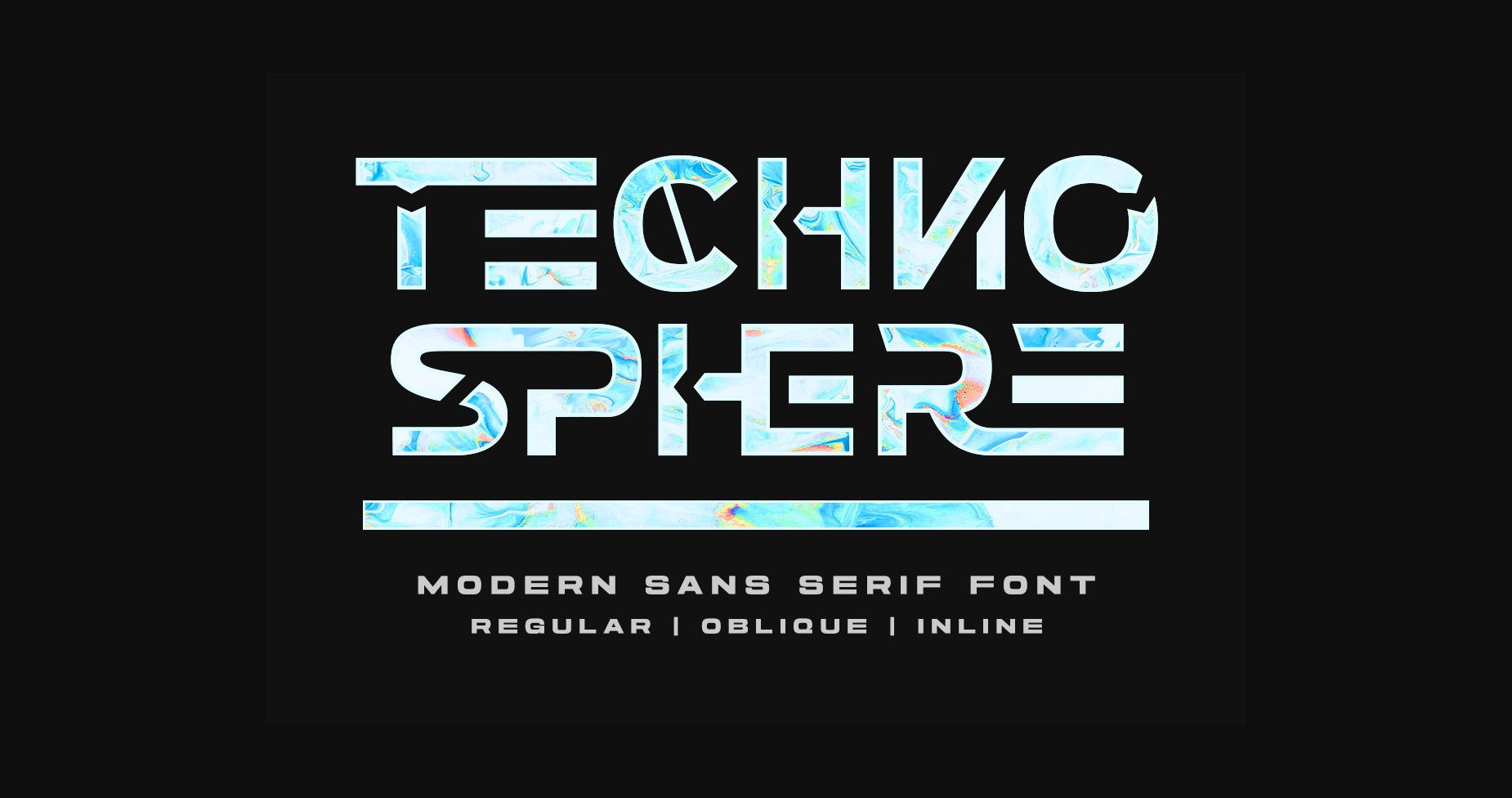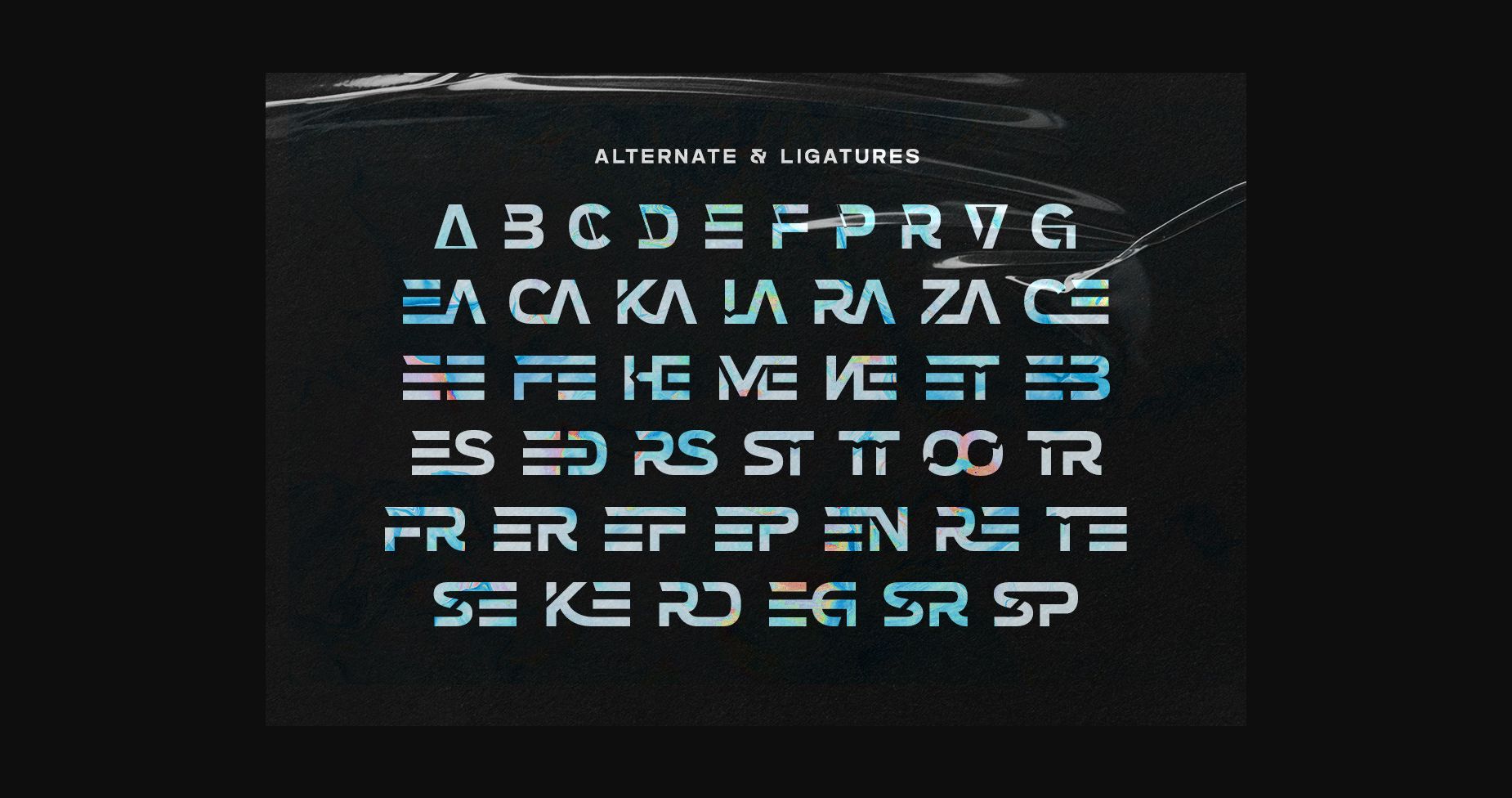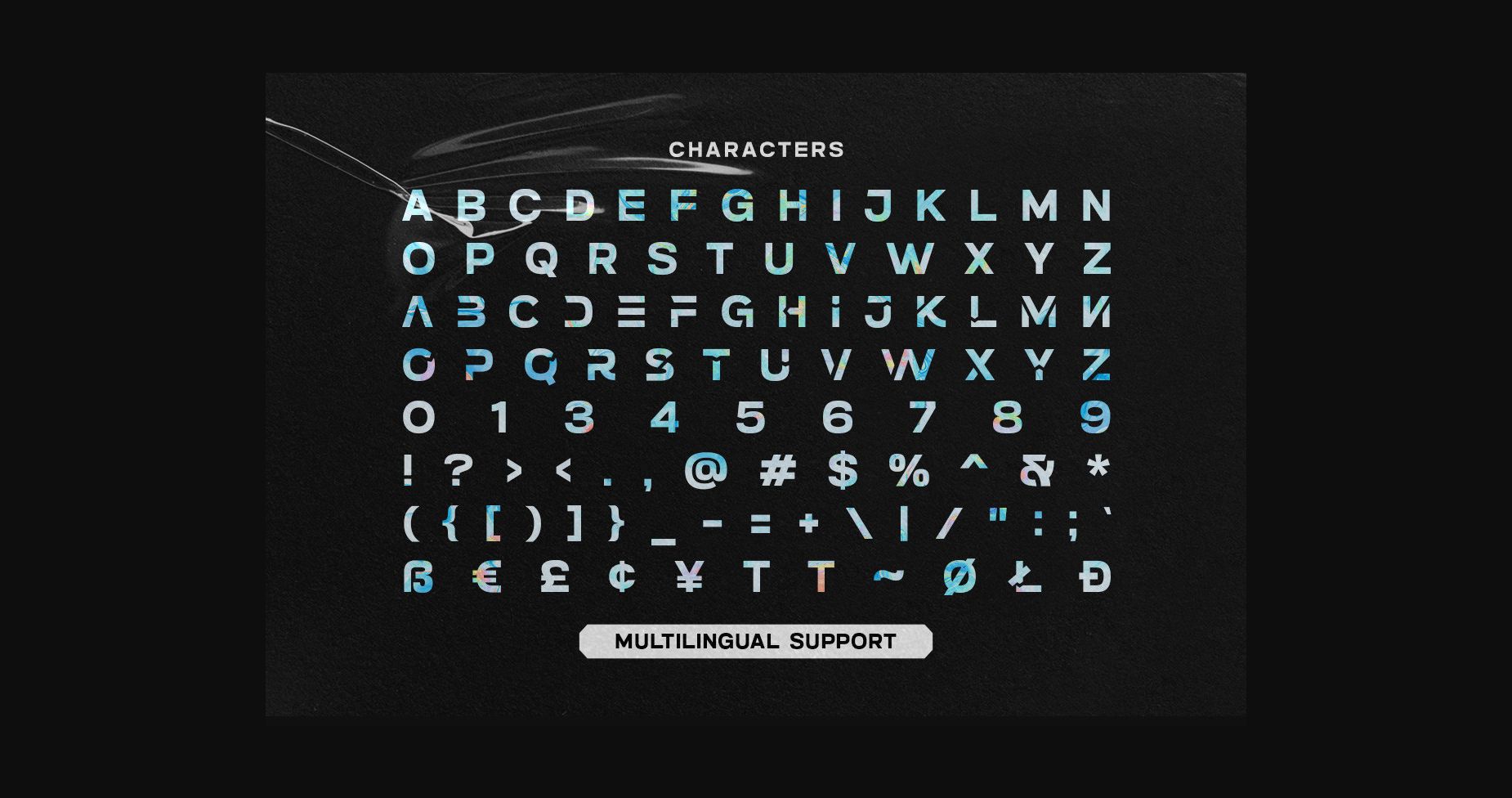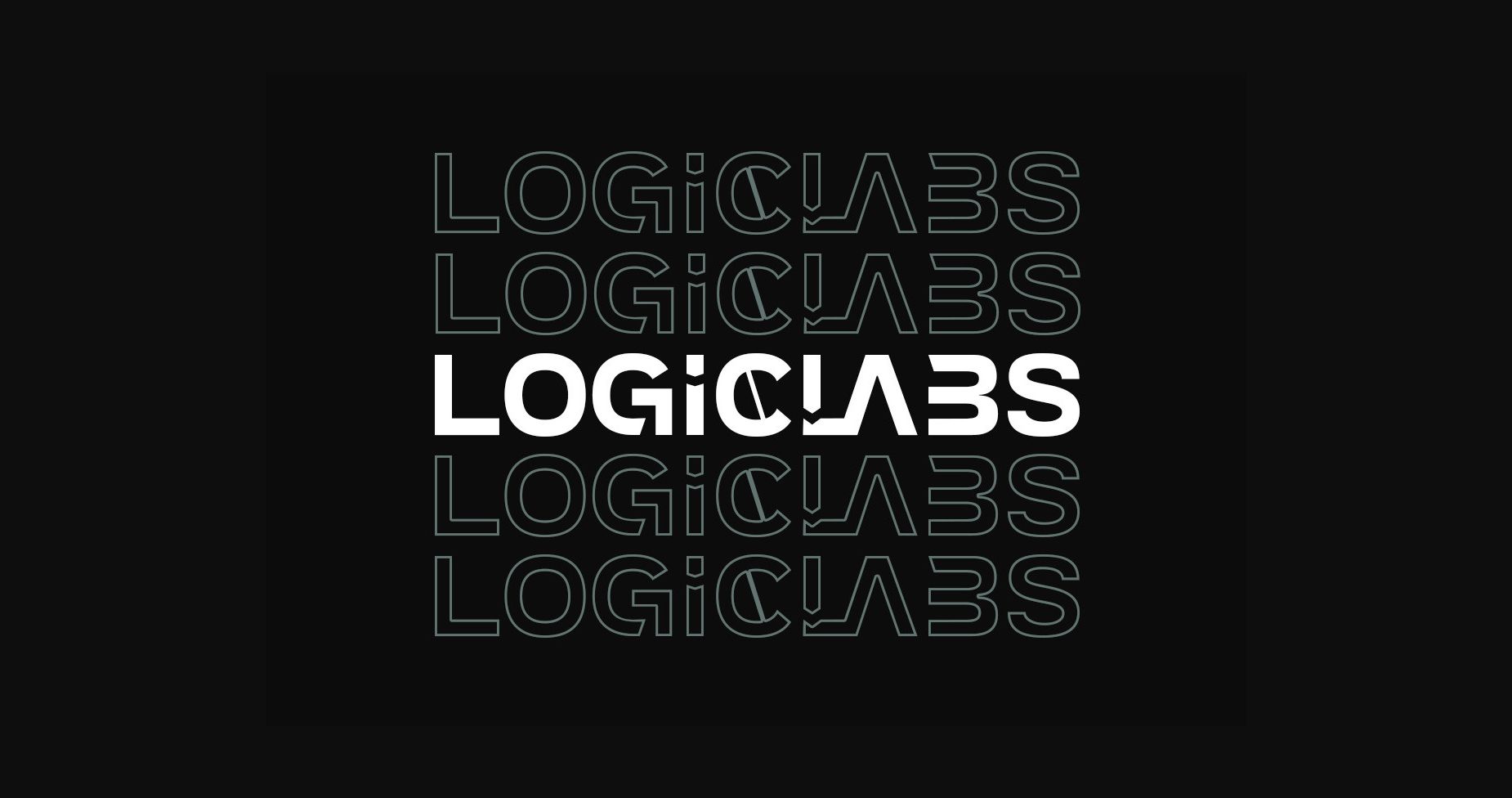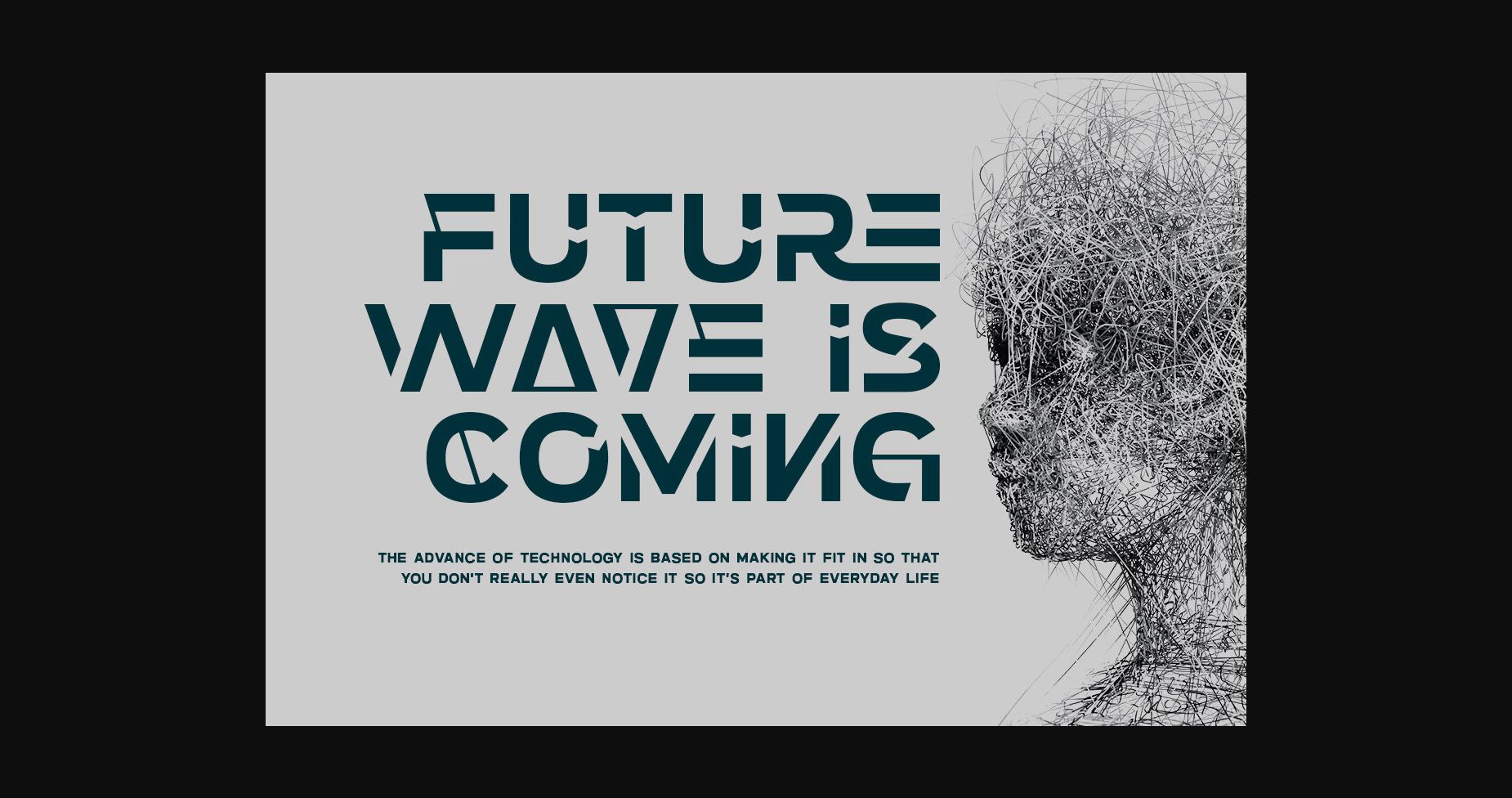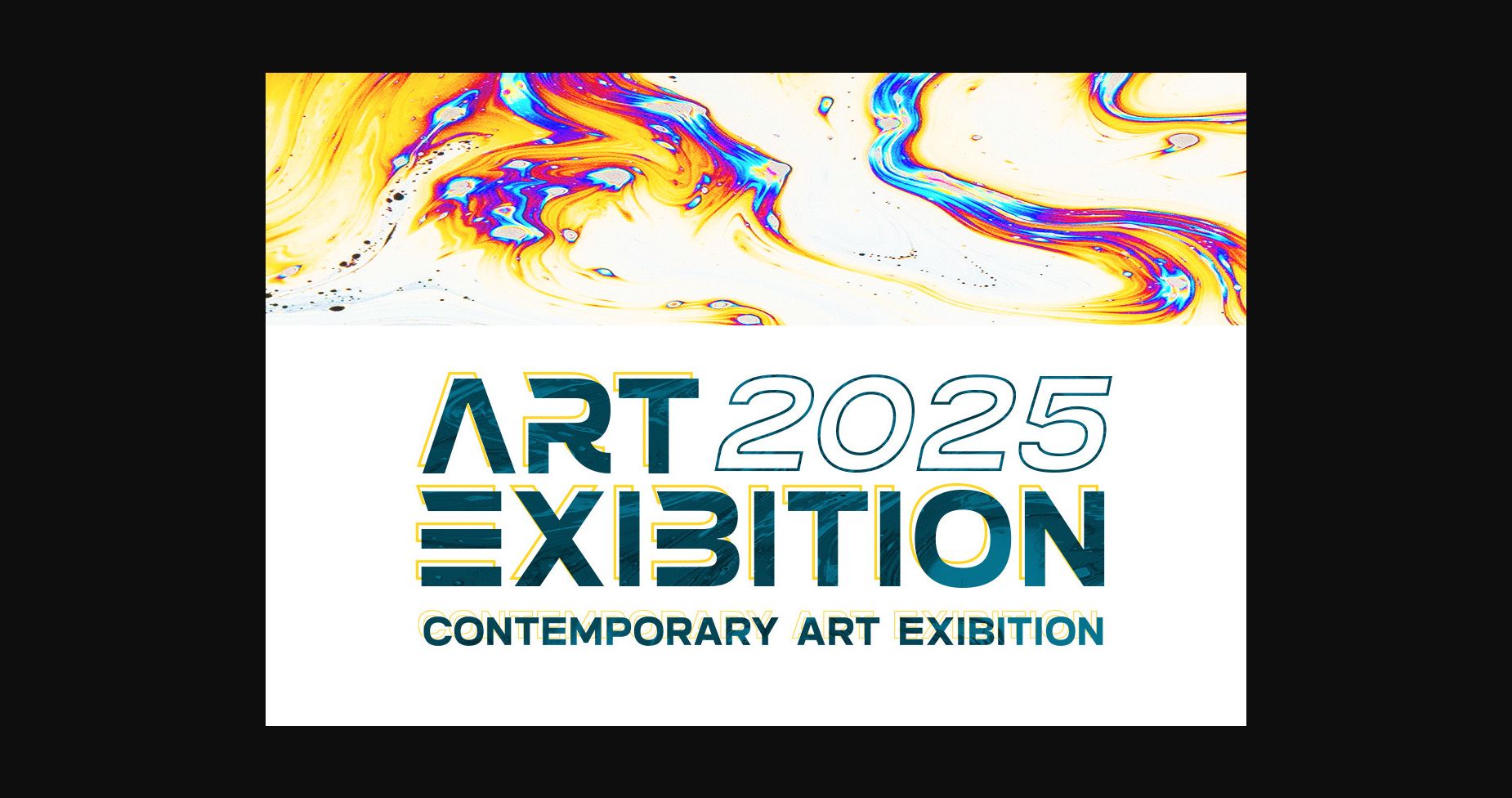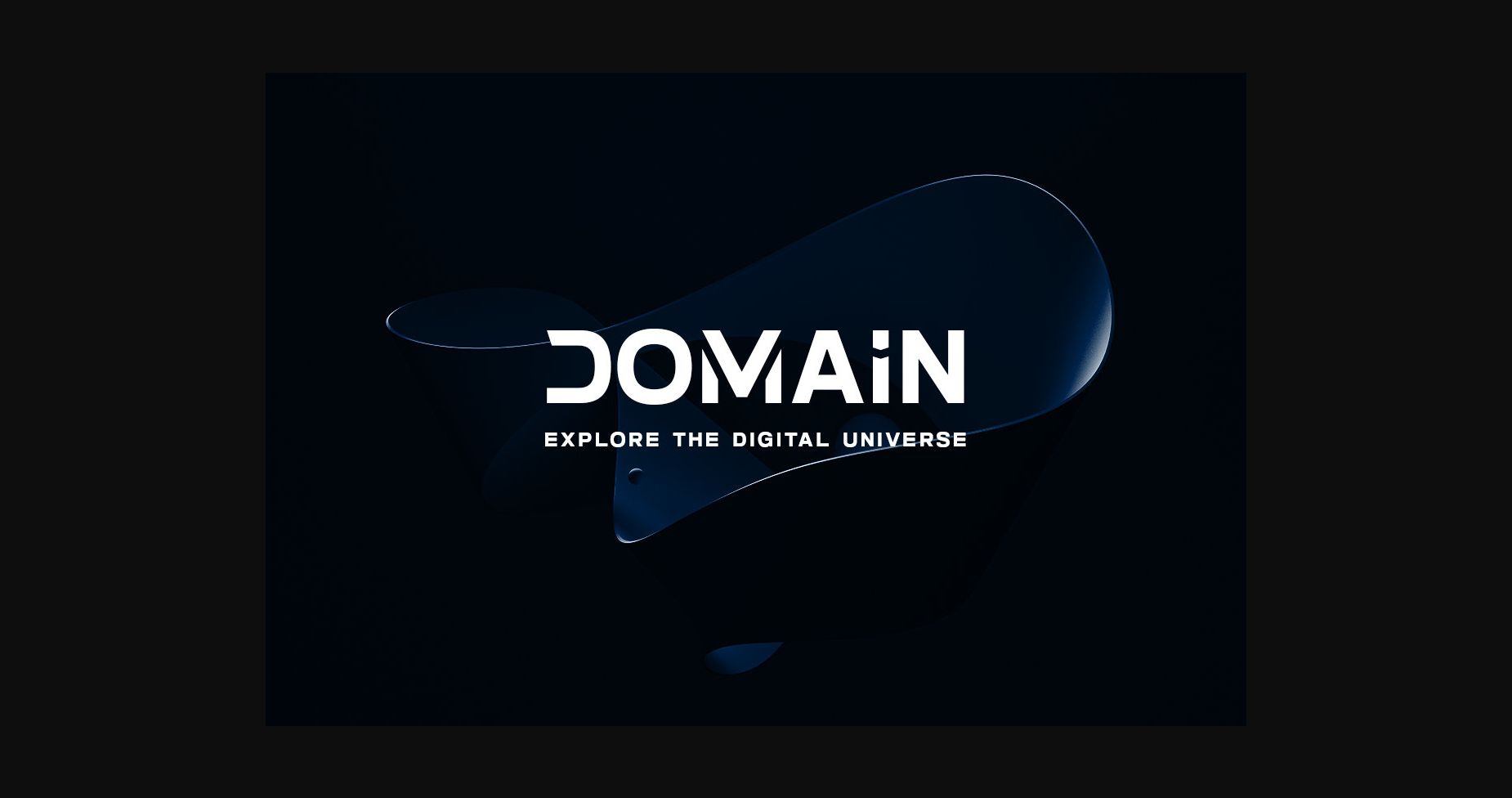
Techno Sphere Font
About Techno Sphere Font
Techno Sphere is the epitome of modernity and technology in font form. With its bold and futuristic design that conveys a sense of precision and efficiency, it will make your text will stand out as the ultimate embodiment of progress and innovation.